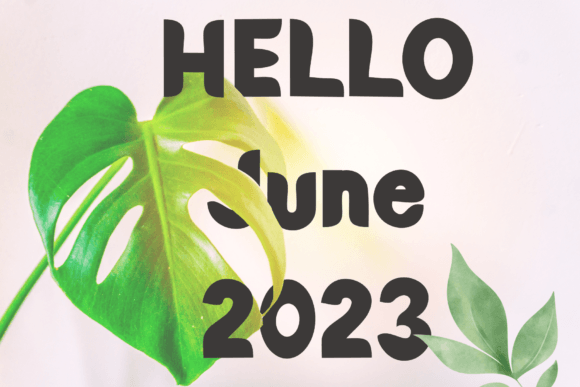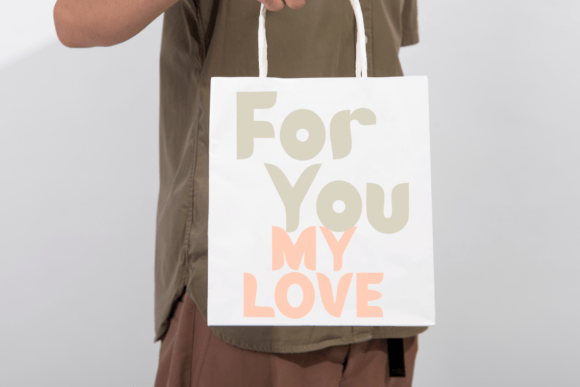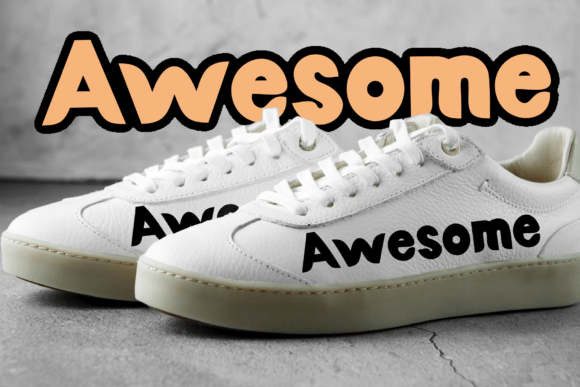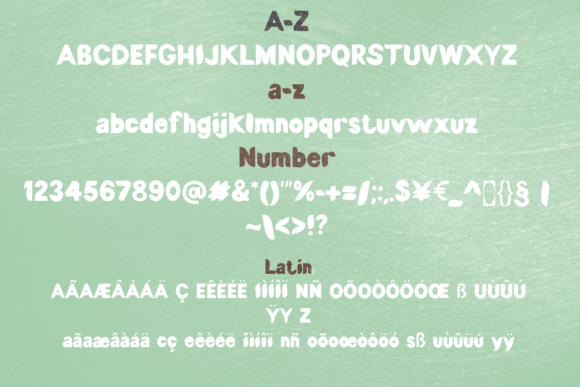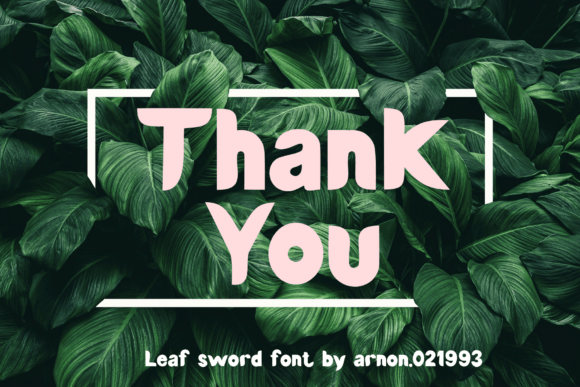
Introduction to Leaf Sword Font
This font so cute for your project wedding, greeting card, logos, banding material business card, quotes, posters, shirts, mugs and more.
Key Features of Leaf Sword Font
Why Choose Leaf Sword Font?
Leaf Sword Font offers exceptional quality and versatility, making it a valuable addition to your design toolkit. Whether you’re creating for personal projects or commercial use, Leaf Sword Font delivers professional results.